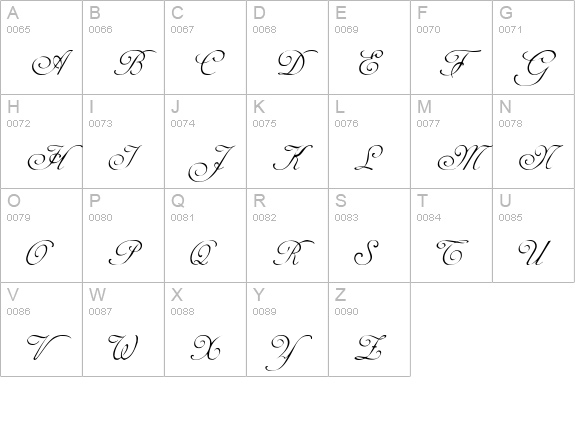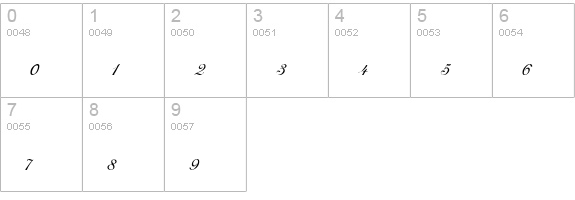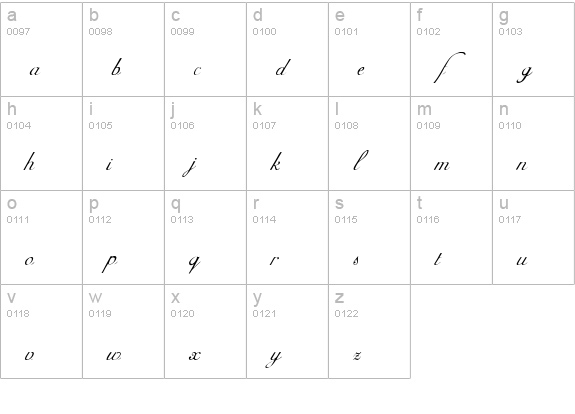
Adine Kirnberg Alternate Font Details
Introducing Adine Kirnberg Alternate, a stunning font that combines elegance with a touch of vintage charm. This font is the perfect choice for those seeking to add a unique and sophisticated flair to their designs. With its beautifully intricate letterforms and ornamental details, Adine Kirnberg Alternate exudes a timeless appeal that will captivate any audience. What sets Adine Kirnberg Alternate apart is its versatility - it can effortlessly adapt to various design projects, from wedding invitations to branding materials and everything in between. Whether you're looking to create a romantic and whimsical atmosphere or evoke a sense of nostalgia, this font has got you covered. But what truly makes Adine Kirnberg Alternate stand out is the fact that it is available for free. Yes, you read that right - this incredible font can be downloaded without any cost at FontsMarket.com. Now, you can enhance your creative endeavors without breaking the bank. With its extensive character set, including alternates and ligatures, Adine Kirnberg Alternate provides you with endless possibilities to truly make your designs shine. It is designed with meticulous attention to detail, ensuring that every curve and flourish is crafted to perfection. So, why wait? Embrace the beauty and elegance of Adine Kirnberg Alternate and elevate your designs to new heights. Download this font for free at FontsMarket.com and unlock a world of creativity at your fingertips. With Adine Kirnberg Alternate, the possibilities are endless, and your designs will never be the same again.